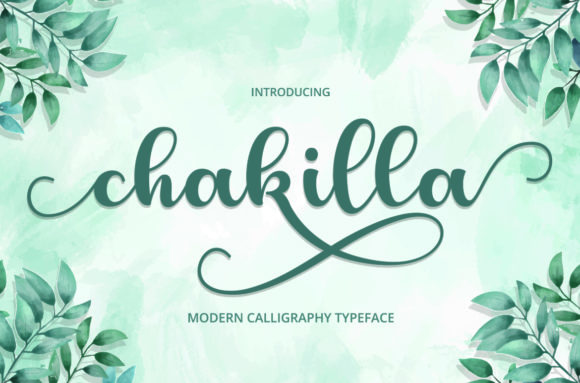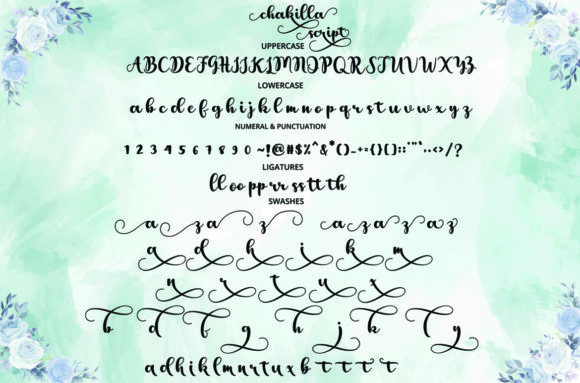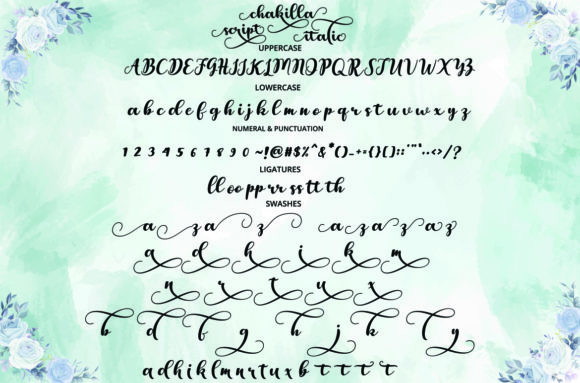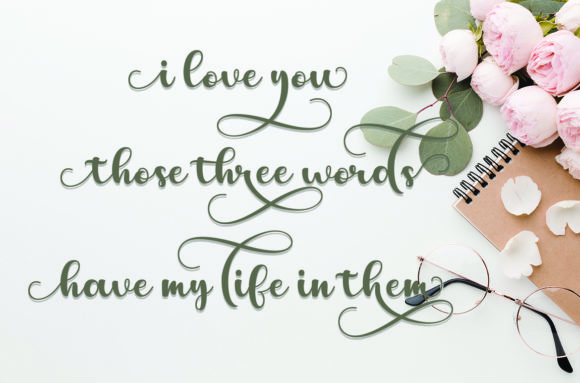
About Chakilla Font
Chakilla is a fresh and modern handwritten font. This font looks beautiful on invitation like greeting cards, branding materials, business cards, quotes, posters, and more!This font is PUA encoded which means you can access all of the glyphs and swashes with ease!